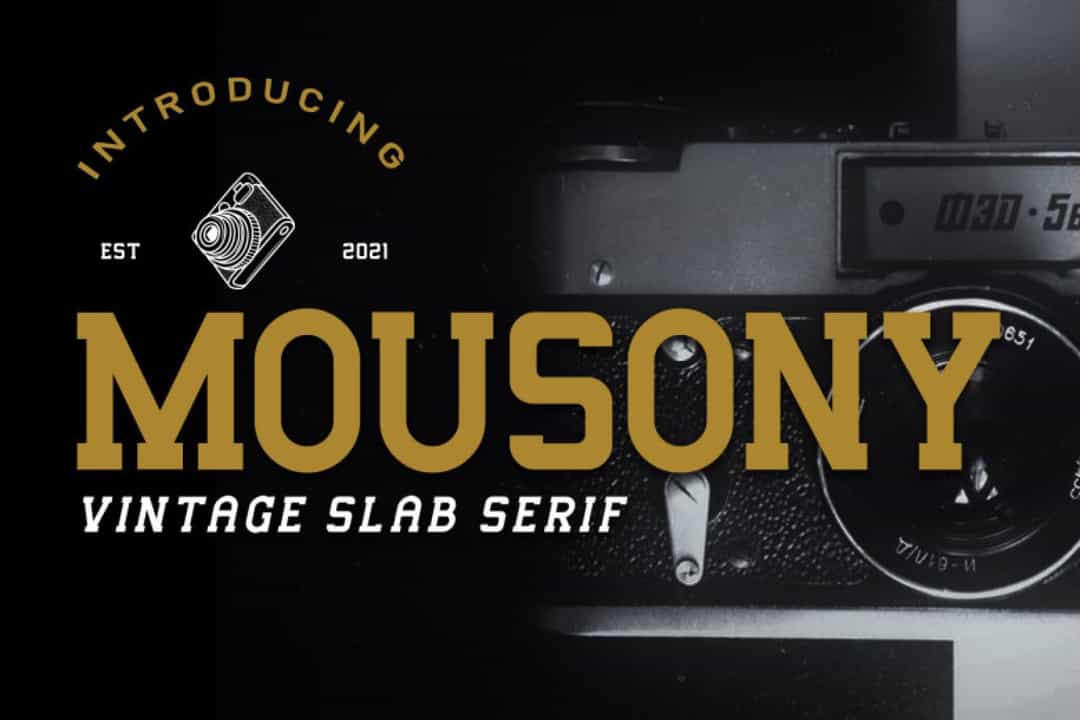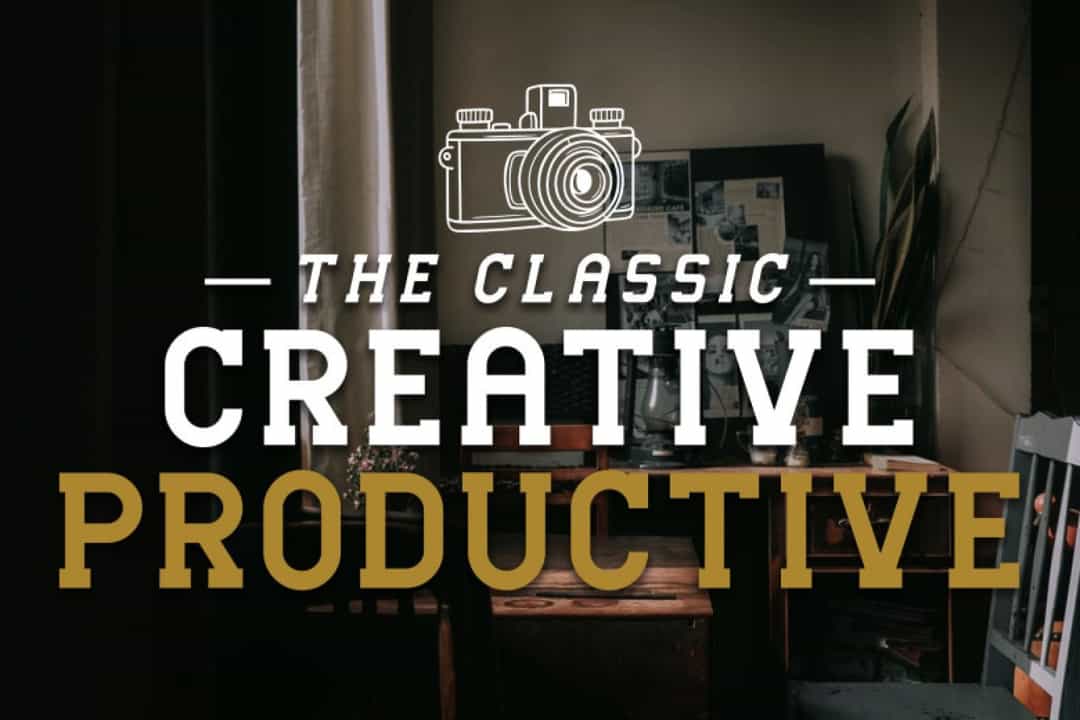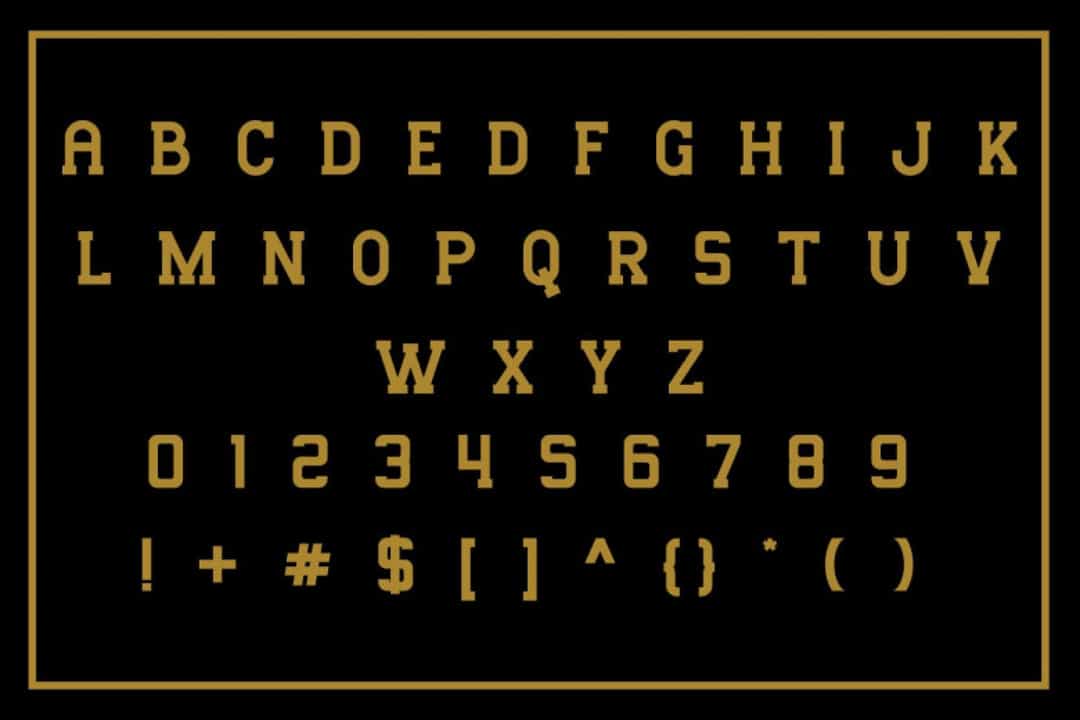
Mousony is an eye-catching vintage style slab serif font. Perfect for use across a variety of craft projects like cards, labels and branding; add this beautiful font to your favorite creations and be wowed by its results!